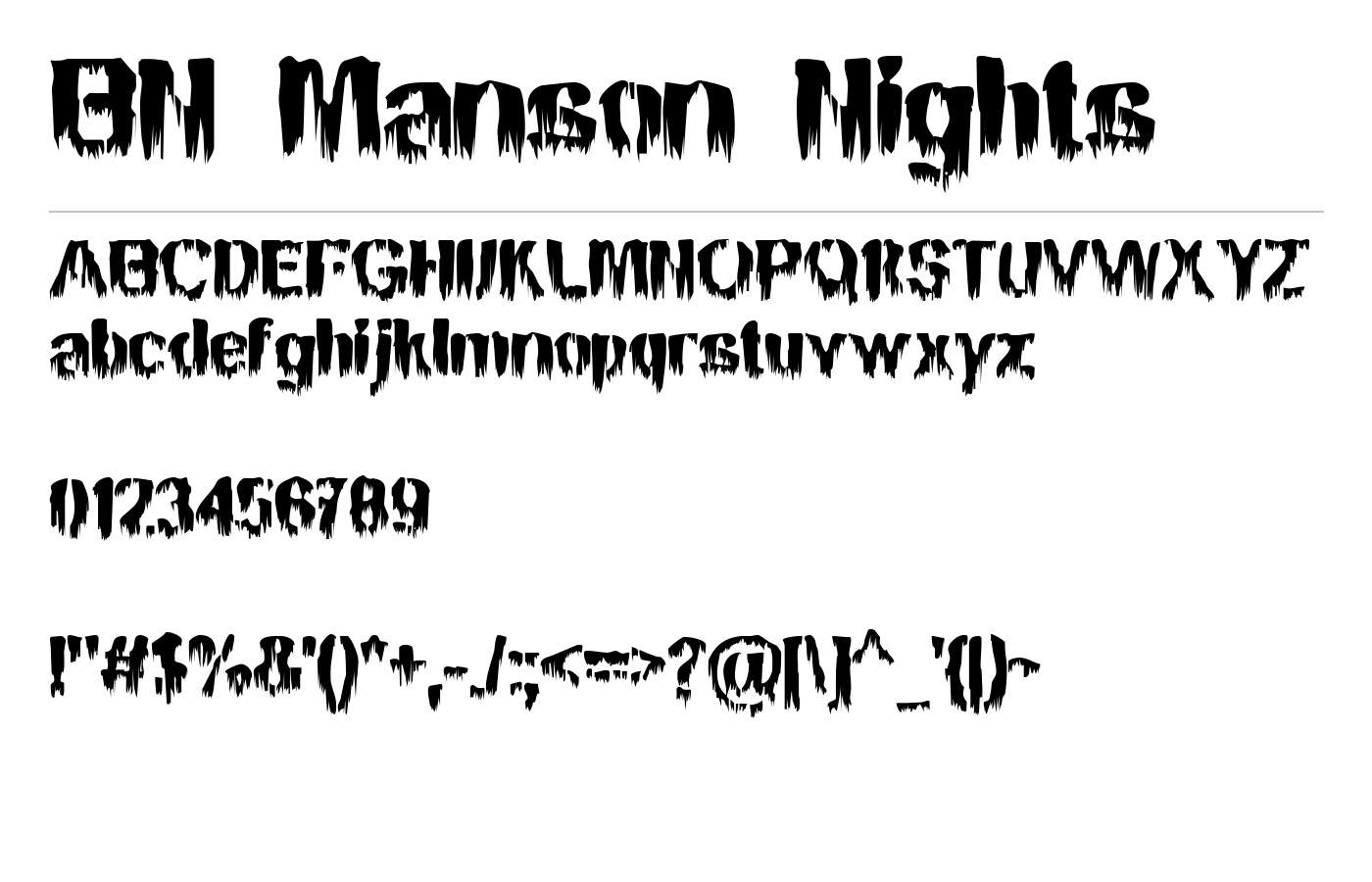
BN Manson Nights is a bold, decorative display font with a spooky, dripping effect that gives it a creepy, horror-inspired personality. Its heavy weight and irregular edges create a striking presence, making it perfect for Halloween-themed designs, posters, and branding that aims to evoke a dark, eerie atmosphere. This font works best in headlines and decorative titles where its unique style can truly stand out.
BN Manson Nights Font
About BN Manson Nights Font